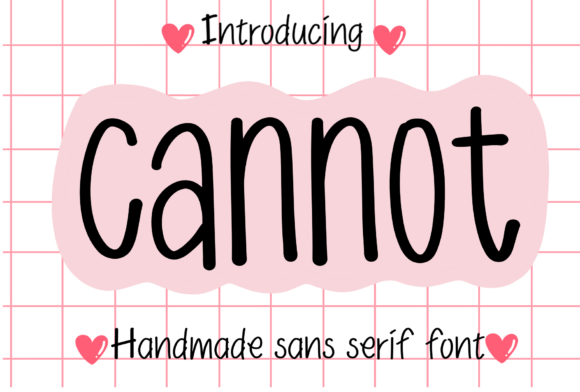
The Font that Stole My Heart: A Love Letter to Cannot
I still remember the design project that led me to discover the beautiful Cannot font. I was working on a whimsical branding project for a new craft bakery, and I was struggling to find the perfect font to capture the warm, friendly vibe of their artisanal treats. That’s when I stumbled upon Cannot, and it instantly became the perfect fit. Its natural, unique style and sweet personality won me over, and I’ve been hooked ever since.
So, what makes Cannot so special? Here are a few things I adore about this lovely font:
• ✨ Unique and quirky style: Cannot’s natural, hand-crafted look sets it apart from more traditional fonts.
• ✅ Highly versatile: This font can adapt to a wide range of designs, from playful crafts to elegant wedding invitations.
• 💕 Warm and friendly vibe: Cannot exudes a sense of approachability and warmth, making it perfect for brands that want to connect with their audience.
Of course, no font is perfect, and Cannot has a few minor quirks:
• 🤔 Limited character set: While Cannot has a wide range of characters, it may not have every special character or glyph you need.
• ⚠️ May require adjustments for large text: Depending on the size and context, Cannot’s unique style may require some tweaking to work well in larger text.
Cannot comes with a range of OpenType features and glyphs that can enhance your typography. Here are a few tips on how to access these features:
• Use OpenType features like Stylistic Alternates and Ligatures to add visual interest to your text.
A Brief Backstory: The Inspiration Behind Cannot
While the true story behind Cannot’s creation may be unknown, it’s easy to imagine a designer with a passion for hand-lettering and typography crafting this beautiful font. Perhaps they wanted to create a font that would bring a touch of whimsy and personality to everyday designs. Whatever the inspiration, Cannot has undoubtedly captured the hearts of designers and crafters worldwide.
Font Name Cannot Font
Author Candygirl Art
What makes Cannot a unique font? Cannot’s natural, hand-crafted style and sweet personality set it apart from more traditional fonts.
Is Cannot a versatile font? Absolutely! Cannot’s unique style makes it incredibly fitting for a wide range of designs, from playful crafts to elegant wedding invitations.